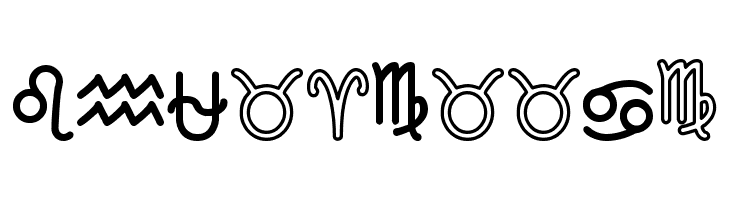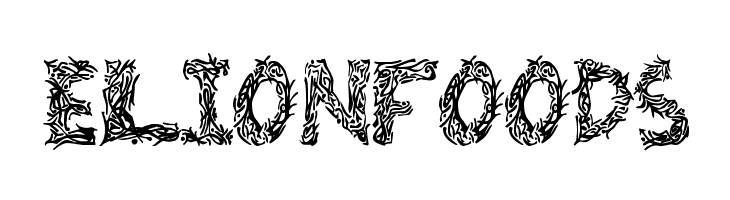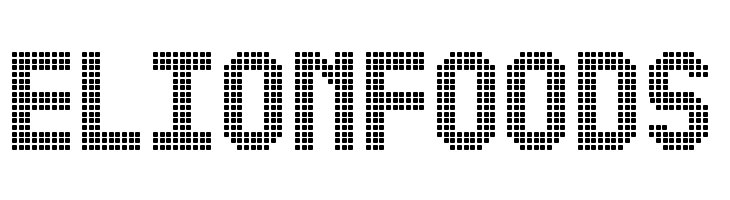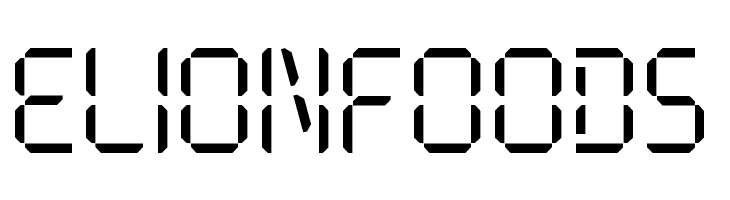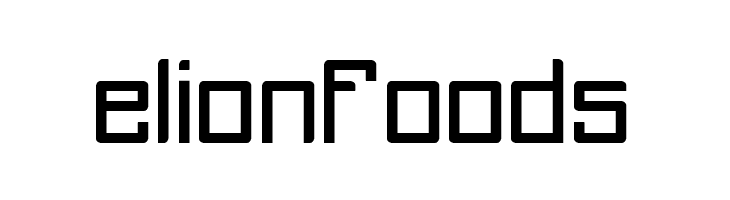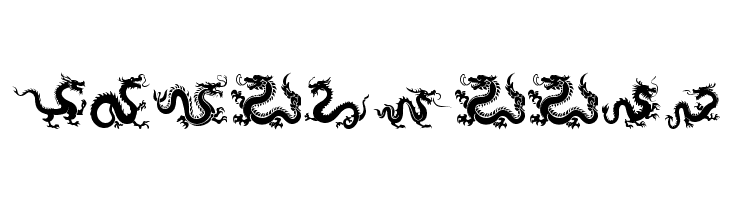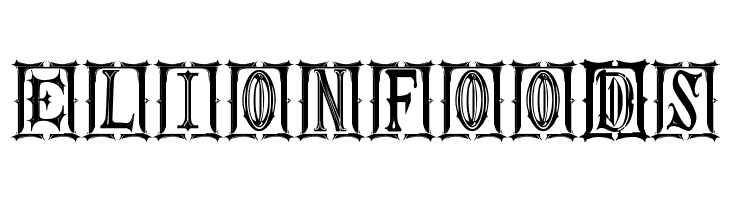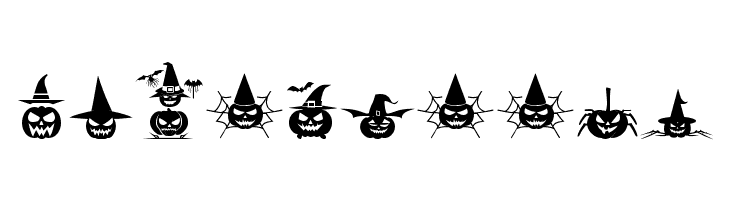
Contains zodiac symbols, not a traditional font.
A bold, decorative font with intricate, tribal-inspired designs.
A dot matrix style font inspired by classic LED displays, offering a retro yet modern look.
A digital, segmented font with a geometric, tech-inspired design.
A geometric, modern font with consistent stroke width and angular design.
A decorative font with intricate dragon motifs replacing standard characters.
A bold, Gothic-inspired font with ornate, decorative frames around each character.
A whimsical, magical-themed decorative font with enchanting silhouettes.
A decorative font with Halloween-themed icons like pumpkins and witches.